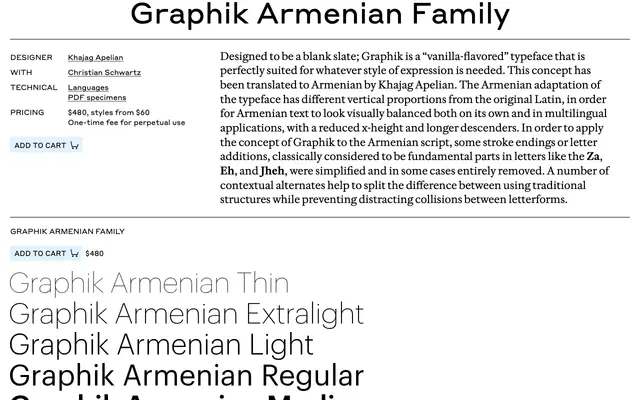
Graphik Armenian
Commercial Type · Khajag Apelian · 2019
Khajag Apelian's Armenian companion to Graphik, with reduced x-height and contextual alternates tuned to the script.
An Armenian companion to Graphik by Khajag Apelian. The original concept of a blank-slate, vanilla sans is translated to Armenian with different vertical proportions to the Latin, reducing the x-height and lengthening descenders so the script feels balanced both on its own and in multilingual settings. Stroke endings and letter elements traditionally considered fundamental on letters like Za, Eh and Jheh have been simplified, with contextual alternates handling the trade-off between traditional structure and distracting collisions. Nine weights with italics make it a strong pick for editorial systems and brands working across Armenian and Latin.
Commercial Type frame Graphik Armenian as Khajag Apelian's adaptation of Graphik's vanilla concept to Armenian, with simplified stroke endings and contextual alternates to keep the script working at the same plain register as the Latin.